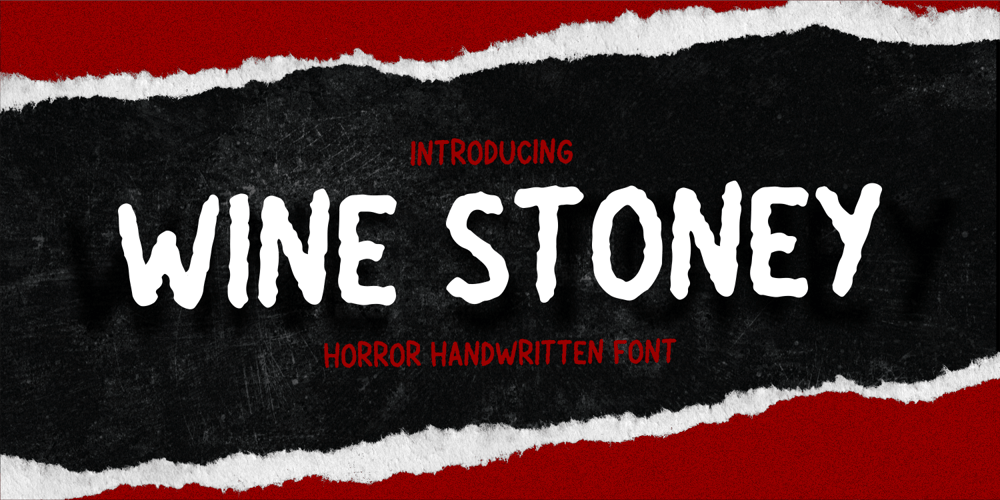
Wine Stoney
Wine Stoney font
Wine Stoney Font Family was designed by ANGGI HERMAWAN and published by Forberas Club. Wine Stoney contains 1 styles and family package options. Wine Stoney font is inspiration from simple cloud. This font can use for comic style , cartoon, and serious like horror themes.